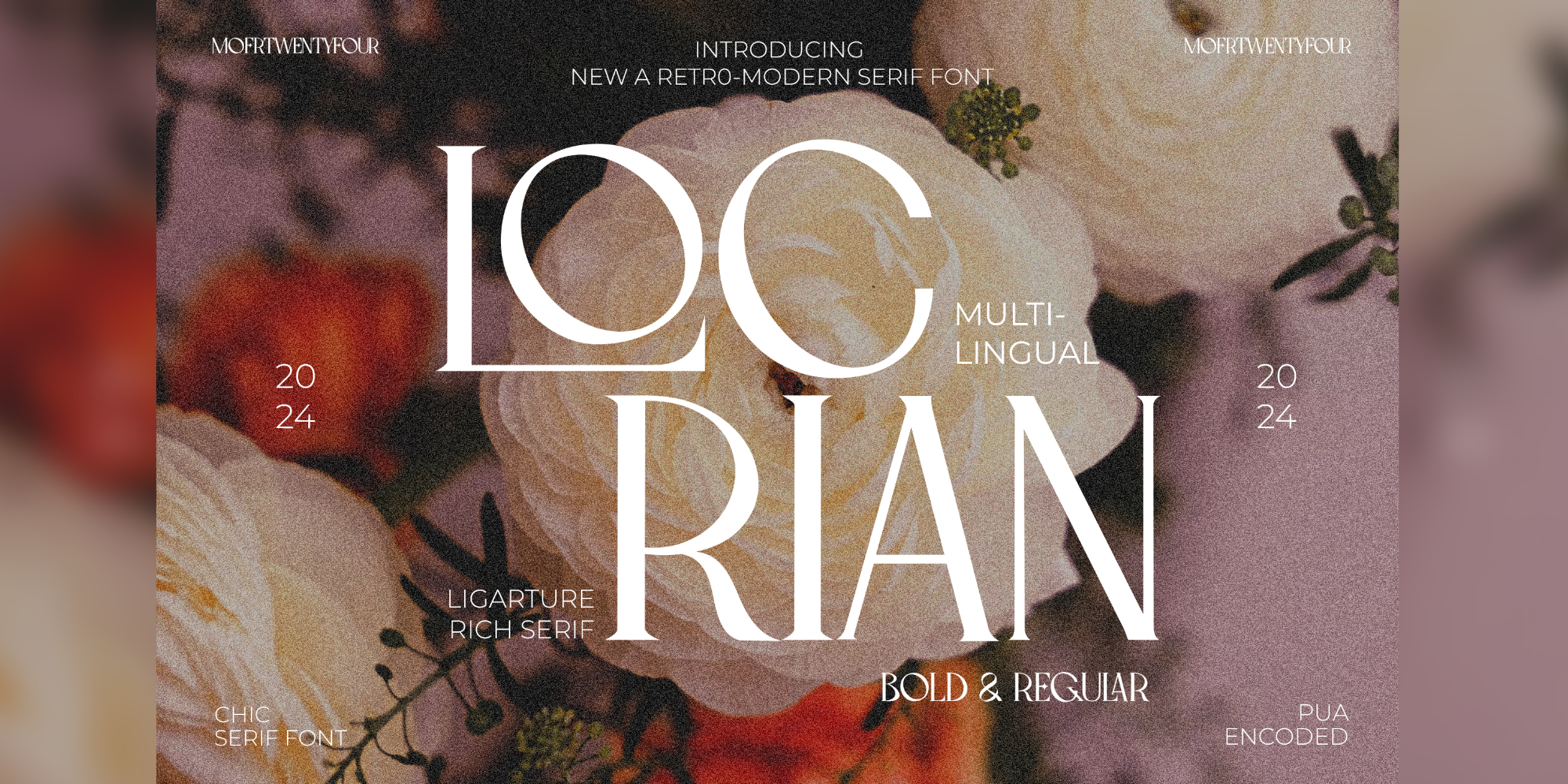
Locrian Font Free Download – A hauntingly beautiful display typeface inspired by the mysterious musical mode of the same name. Commercial use requires a license, but you can download the free version to compose your darkly elegant designs.
Where Can You Use Locrian Font?
This enigmatic font resonates in:
• Gothic music branding (perfect for doom metal bands and darkwave artists)
• Mystical book covers (occult literature, dark fantasy novels)
• Luxury dark fashion (high-end gothic apparel and jewelry)
• Theatrical posters (Shakespearean tragedies, vampire films)
Why Is Locrian Font Exciting?
Locrian strikes a perfect minor-key balance with:
• Sharp, dagger-like serifs that suggest ancient manuscripts
• Subtle calligraphic flourishes in key characters
• Unsettling yet beautiful proportions
• Optical corrections for maximum dark elegance
Locrian Font Family
The complete harmonic collection includes:
• Locrian Regular (base mysterious style)
• Locrian Bold (more dramatic presence)
• Locrian Italic (flowing, ink-like variant)
• Locrian Shadow (3D haunting effect)